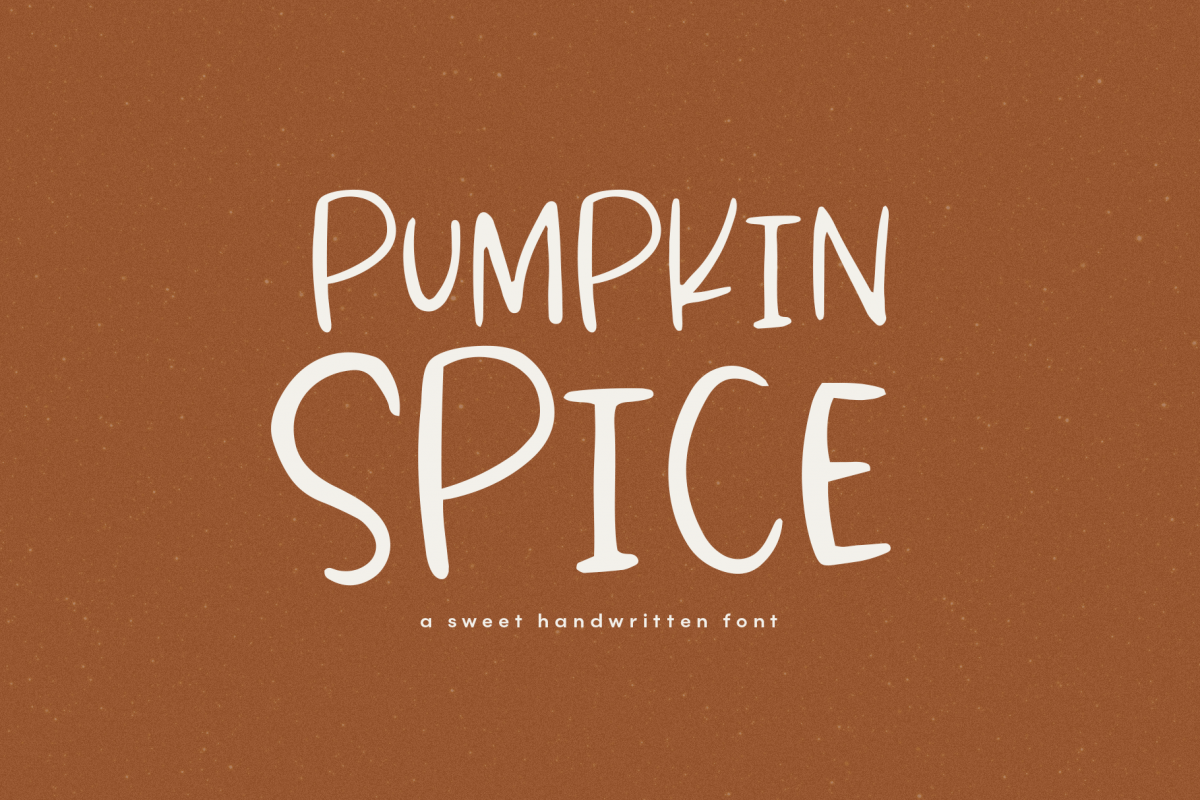
Pumpkin Spice - A Fun Handwritten Font
Pumpkin Spice is a fun & slightly textured handwritten font!
This font is perfect for quotes, shirt designs, websites, branding, children's designs,  blogs, logos, invitations and more!